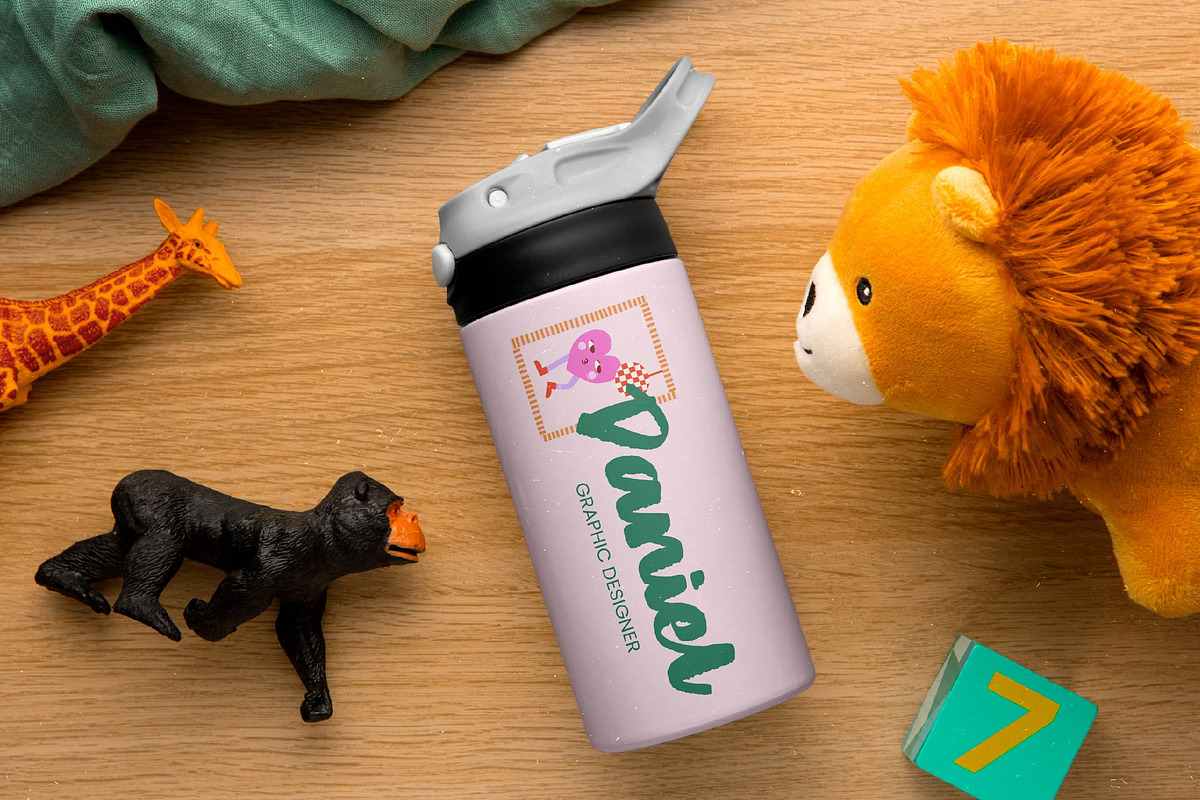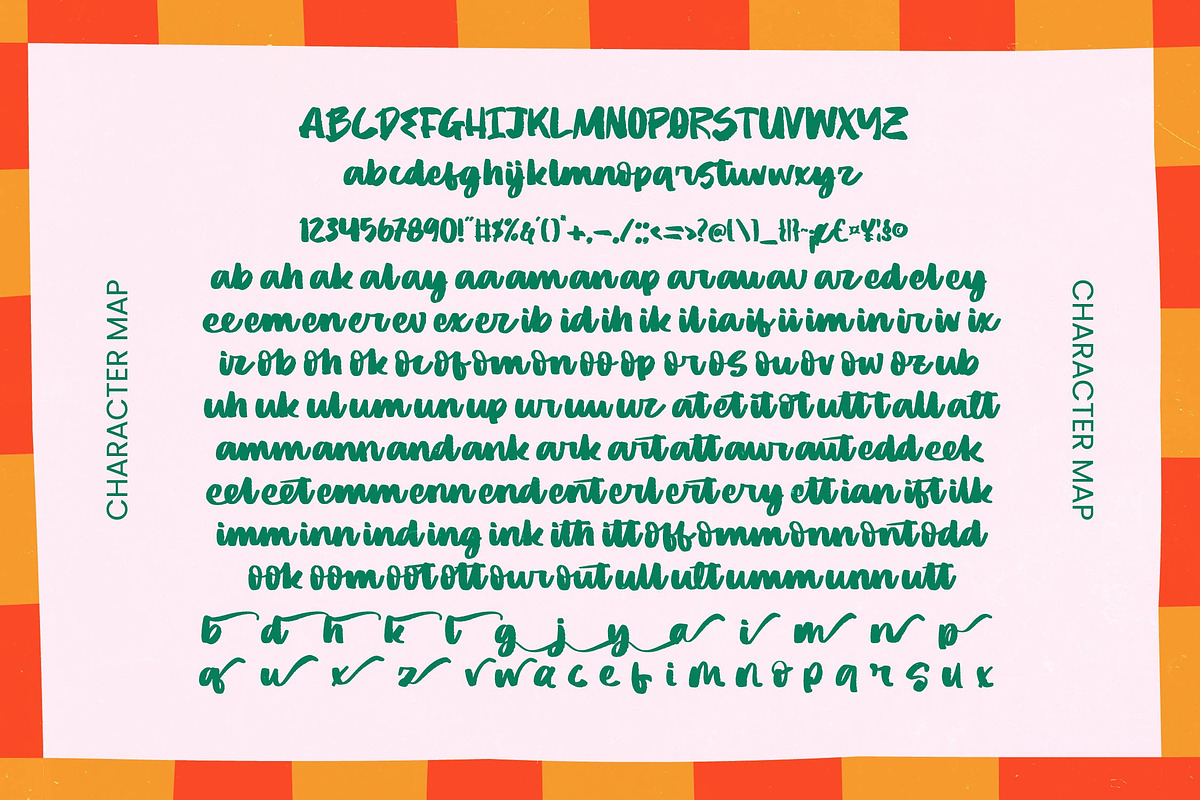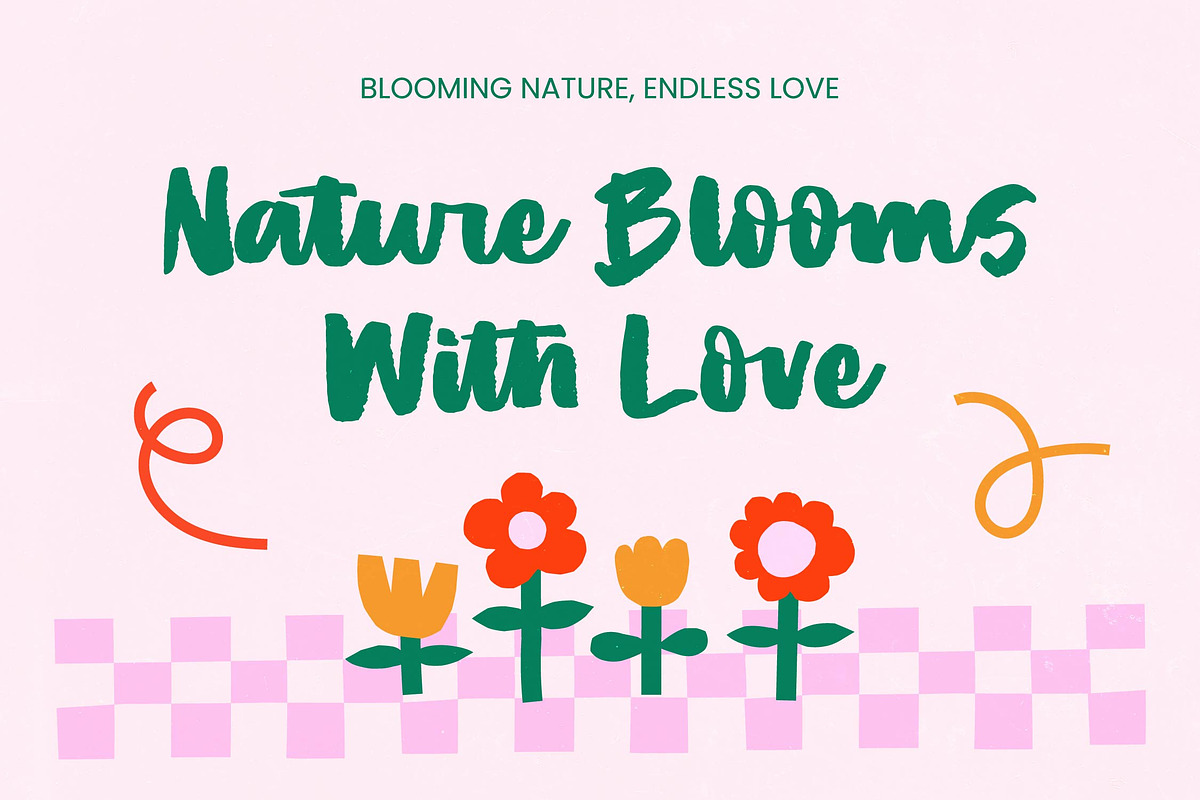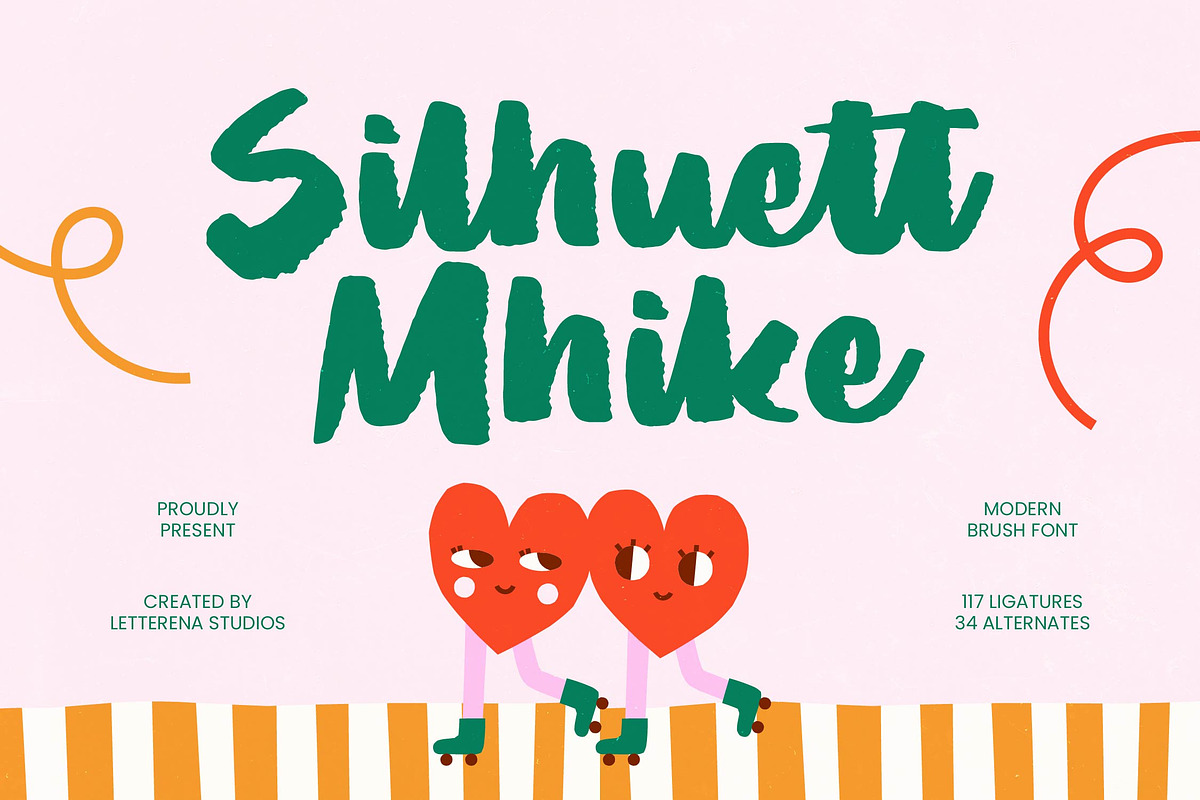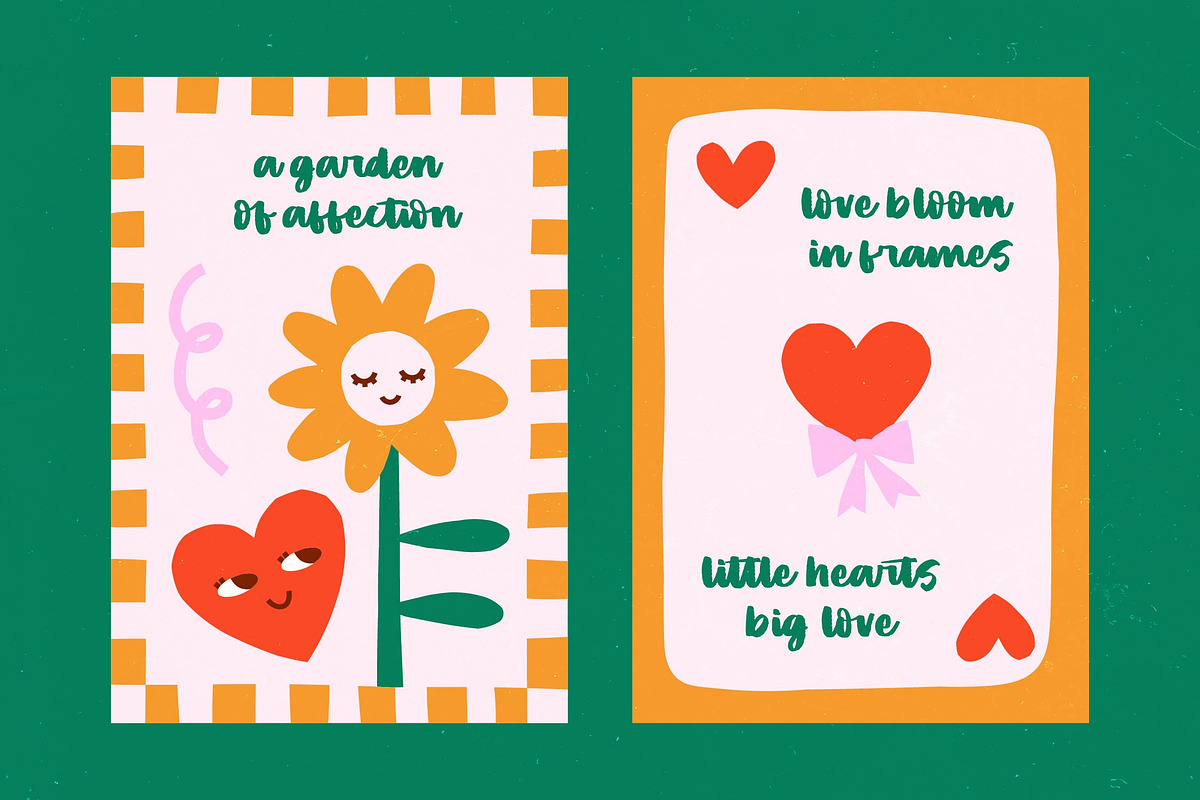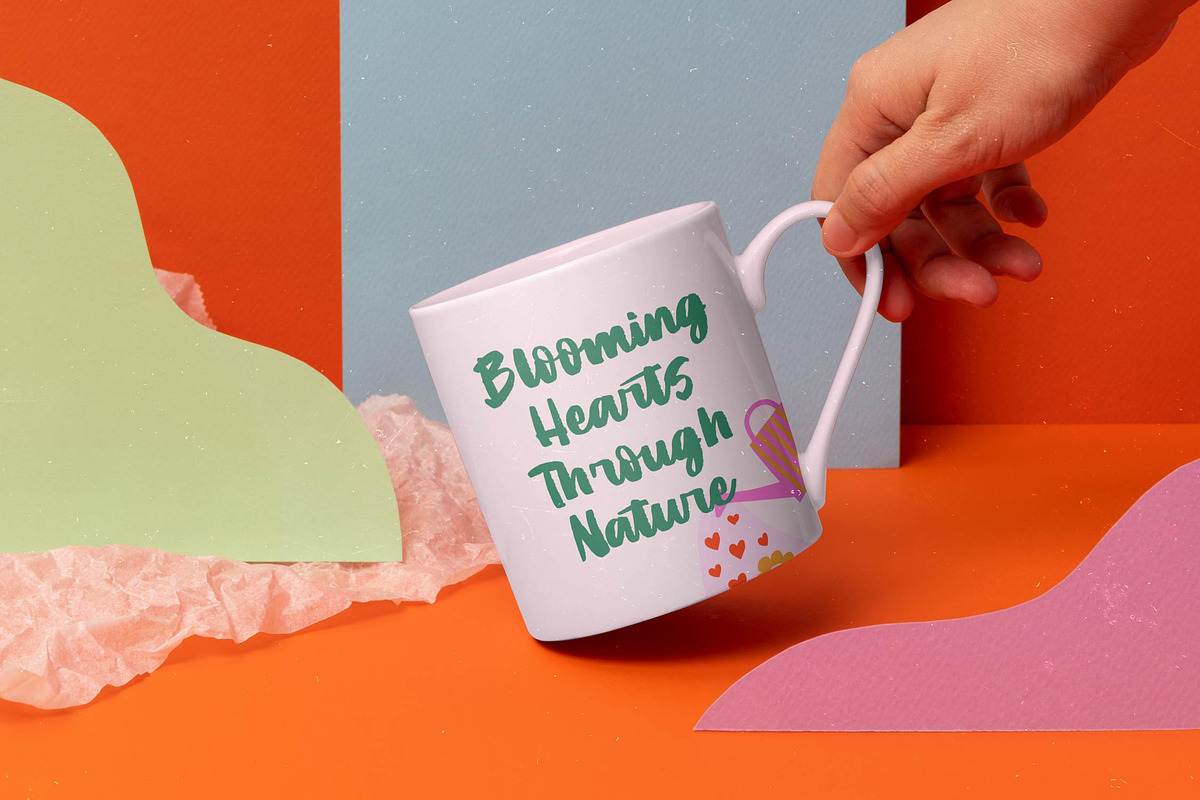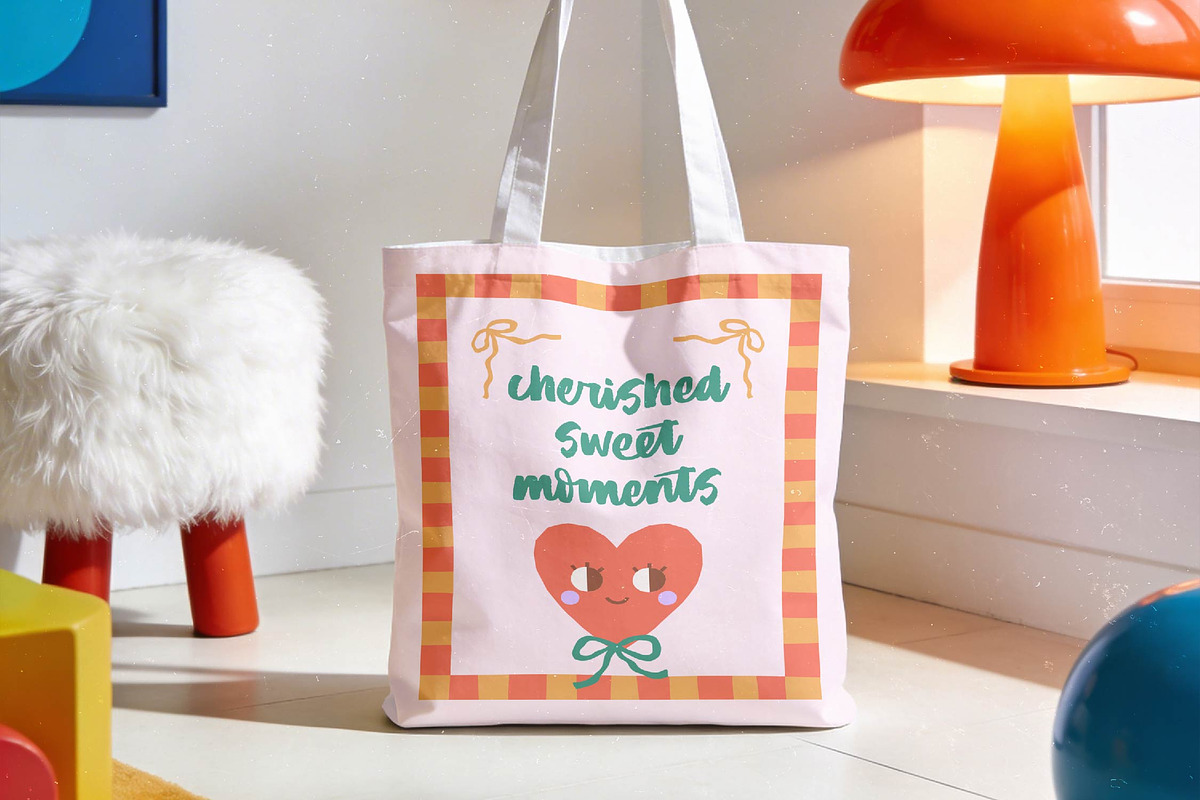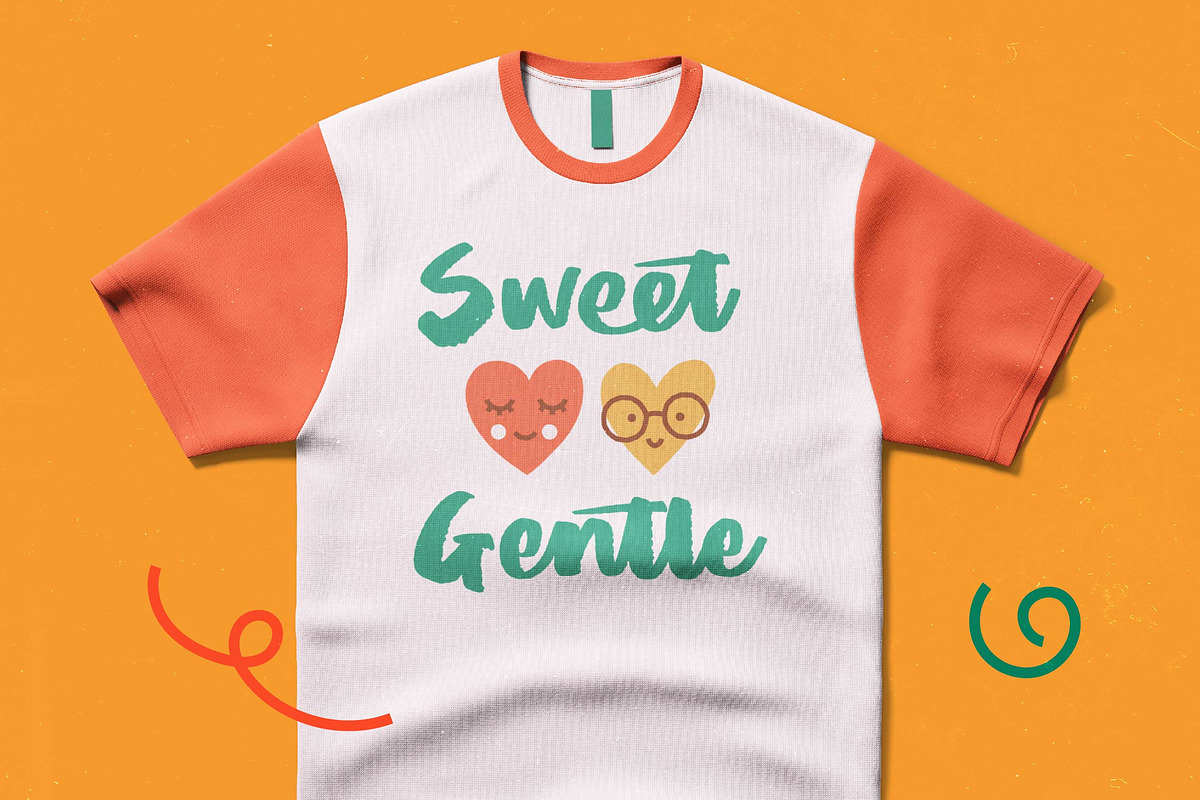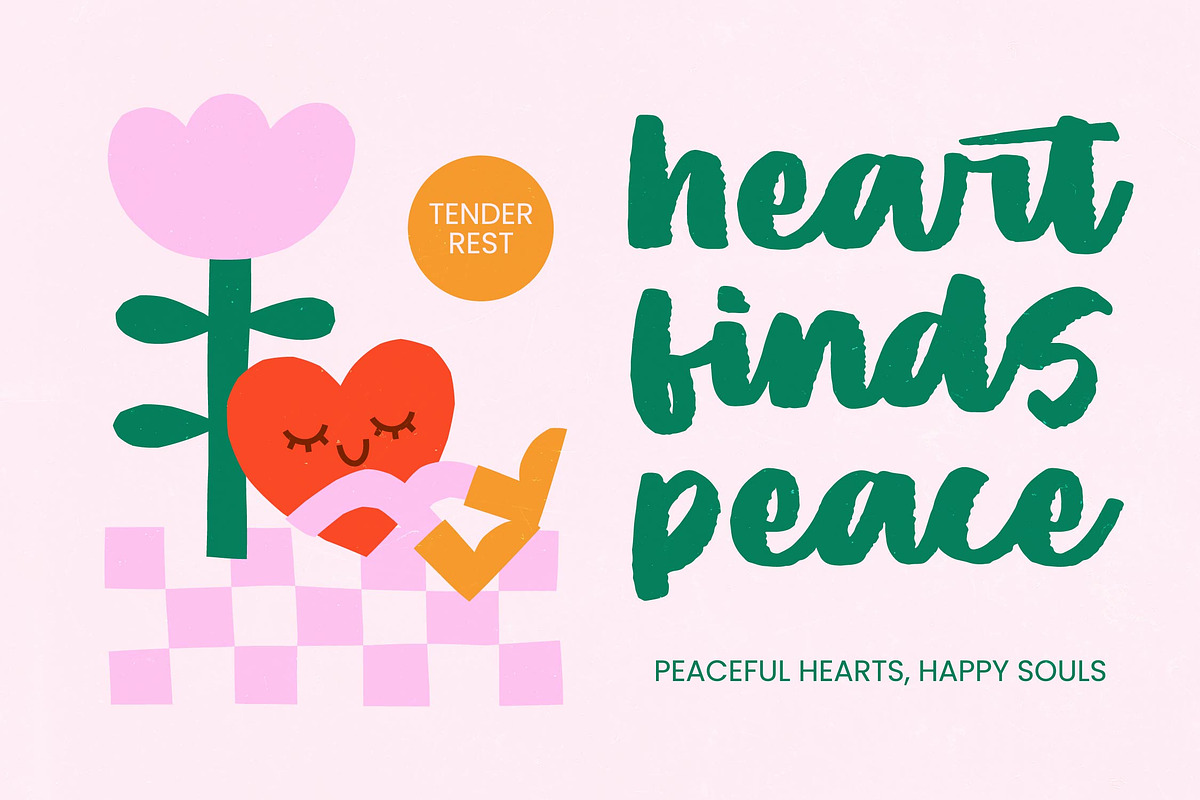
Silhuett Mhike Modern Brush Font
Silhuett Mhike - Modern Brush Font
Elevate your creative projects with the raw, rhythmic energy of Silhuett Mhike - Modern Brush Font. This handcrafted aesthetic combines organic textures with a bold, contemporary structure, ensuring your message commands attention instantly. With its high-impact strokes and fluid motion, Silhuett Mhike - Modern Brush Font is the ultimate choice for designers seeking to infuse their work with a sense of authentic craftsmanship and modern flair.
Define the standard for premium branding and high-impact visual design with this expressive typeface. Regarding its ideal application, Silhuett Mhike - Modern Brush Font is perfect for luxury branding, high-end product packaging, and dynamic editorial design. Its expressive nature makes it particularly effective for lifestyle advertising and bold social media graphics where personality is paramount. Whether used for identity design or promotional posters, Silhuett Mhike - Modern Brush Font provides the creative versatility required to stand out in a competitive marketplace.
Bridge the gap between local charm and global appeal with a typeface built for the modern world. With its extensive multilingual support, Silhuett Mhike - Modern Brush Font adapts seamlessly across global markets, making it incredibly versatile for international projects. By providing a wide range of characters, Silhuett Mhike - Modern Brush Font ensures that your brand messaging remains consistent and powerful regardless of the linguistic context or geographic region.
Unlock limitless creative possibilities with advanced features designed for professional results. By leveraging the 117 ligatures and 34 alternates, Silhuett Mhike - Modern Brush Font allows for customizable letterforms that enhance the flow and rhythm of your text. Silhuett Mhike - Modern Brush Font is more than just a typeface; it is a professional design tool engineered to bring sophisticated visual storytelling to life. Invest in Silhuett Mhike - Modern Brush Font today to redefine your creative portfolio with unmatched style.